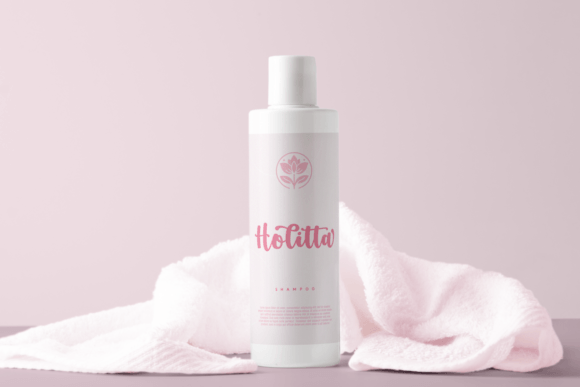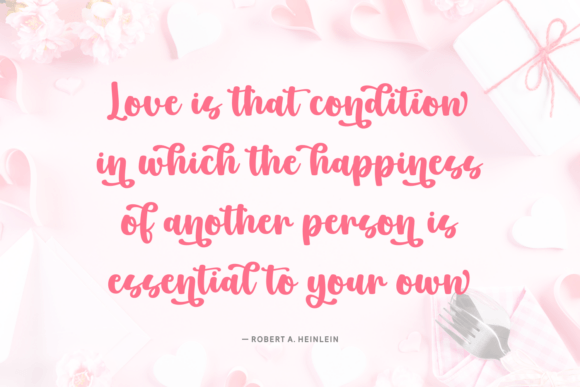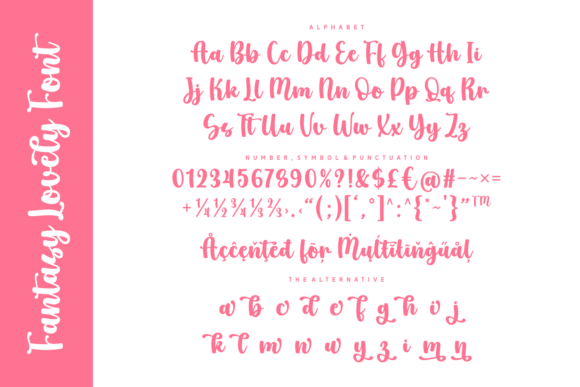
Discover the Magic of Fantasy Lovely Font
As a designer, there’s nothing quite like the thrill of creating something that captures the essence of love and romance. You’ve spent hours pouring over inspiration, searching for the perfect font to convey the emotions you want to convey. And then, it hits you – the perfect combination of whimsy and charm that makes your design truly special. For those moments, you’ll want to turn to the Fantasy Lovely Font, a sweet and enchanting script font that’s sure to make your designs stand out.
With its smooth curves and playful swashes, the Fantasy Lovely Font is the perfect choice for Valentine’s Day designs, wedding invitations, and love-themed projects. Its versatility and delightful style make it a valuable addition to any designer’s toolkit, adding a cheerful and heartfelt touch to any creative work.
Fantasy Lovely Font Key Features
- Unique Characteristics: Fantasy Lovely Font features elegant, cursive script with intricate details and ornate flourishes, making it perfect for creating whimsical and romantic designs.
Fantasy Lovely Font Review
I recently had the chance to work with the Fantasy Lovely Font, and I must say it’s a mixed bag. On one hand, there are some aspects that really shine ✨.
The font’s whimsical feel is perfect for fantasy and magical themes. It adds a touch of wonder and enchantment to any design project.
The font’s versatility allows it to work well in both digital and print media. I was able to use it for a client’s website and business cards without any issues.
The font’s customization options are quite extensive. I was able to adjust the color, size, and style to fit my client’s specific needs.
However, there are some limitations that should be taken into consideration ⚠️.
The font’s legibility can be an issue at smaller font sizes. I had to adjust the font size and style to ensure it was readable on mobile devices.
The font’s compatibility with certain operating systems and browsers can be a problem. I had to test the font on multiple platforms to ensure it displayed correctly.
Overall, I would give the Fantasy Lovely Font 3.5 out of 5 stars. While it’s a beautiful font with many possibilities, its limitations can be frustrating. I would recommend it for personal projects or small businesses, but for larger commercial projects, I would look for a more versatile and compatible font.
Tip: Use the Fantasy Lovely Font to create whimsical and magical text effects, such as curved or angled text.
Tip: Use the Fantasy Lovely Font to create intricate and detailed text designs, such as typography-based art.
The Fantasy Lovely Font is ideal for:
- Magical and fantasy-themed designs.
- Whimsical and playful text effects.
- Typography-based art and illustrations.